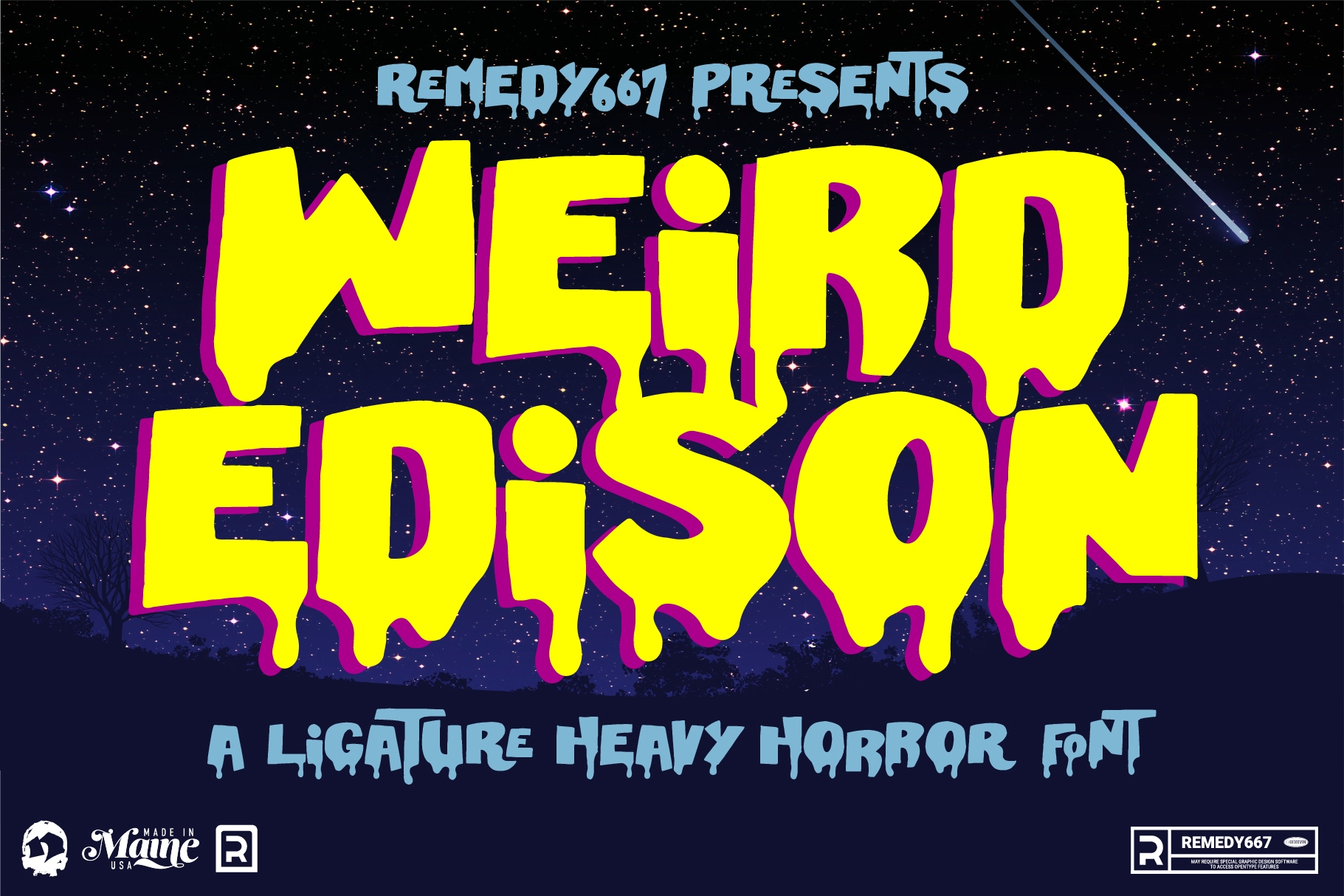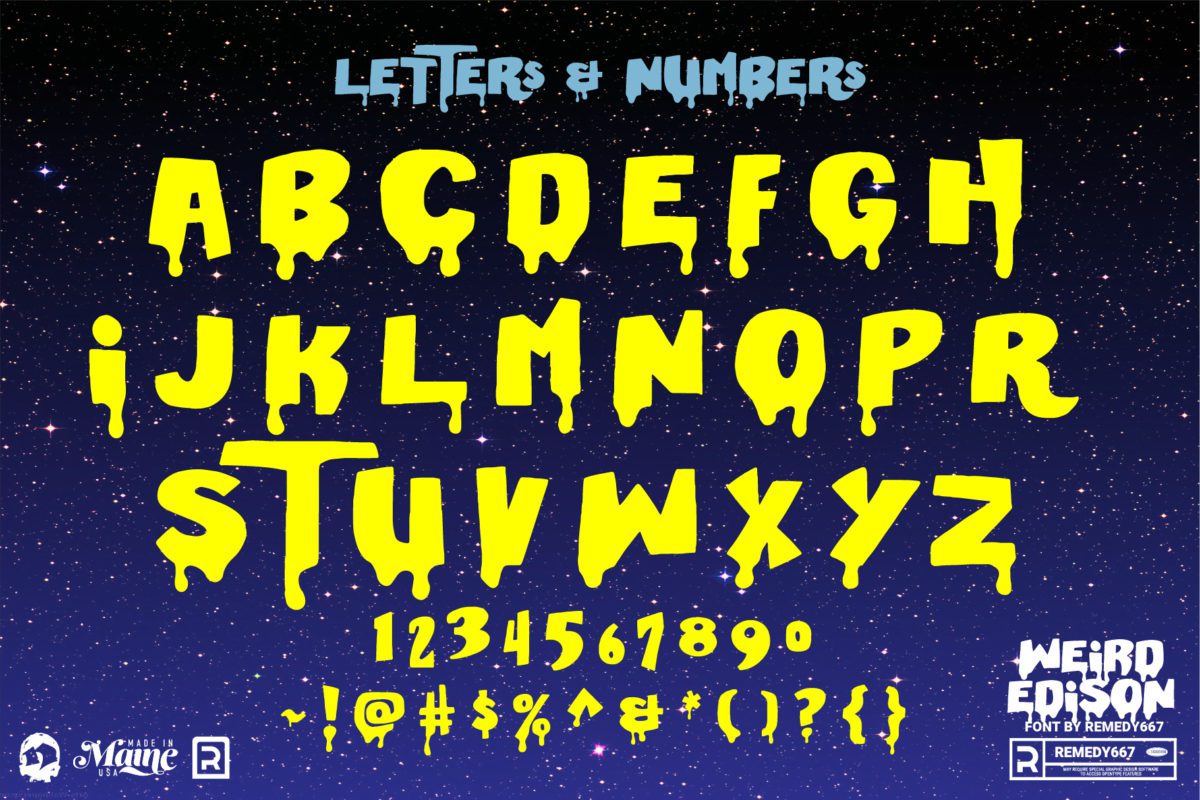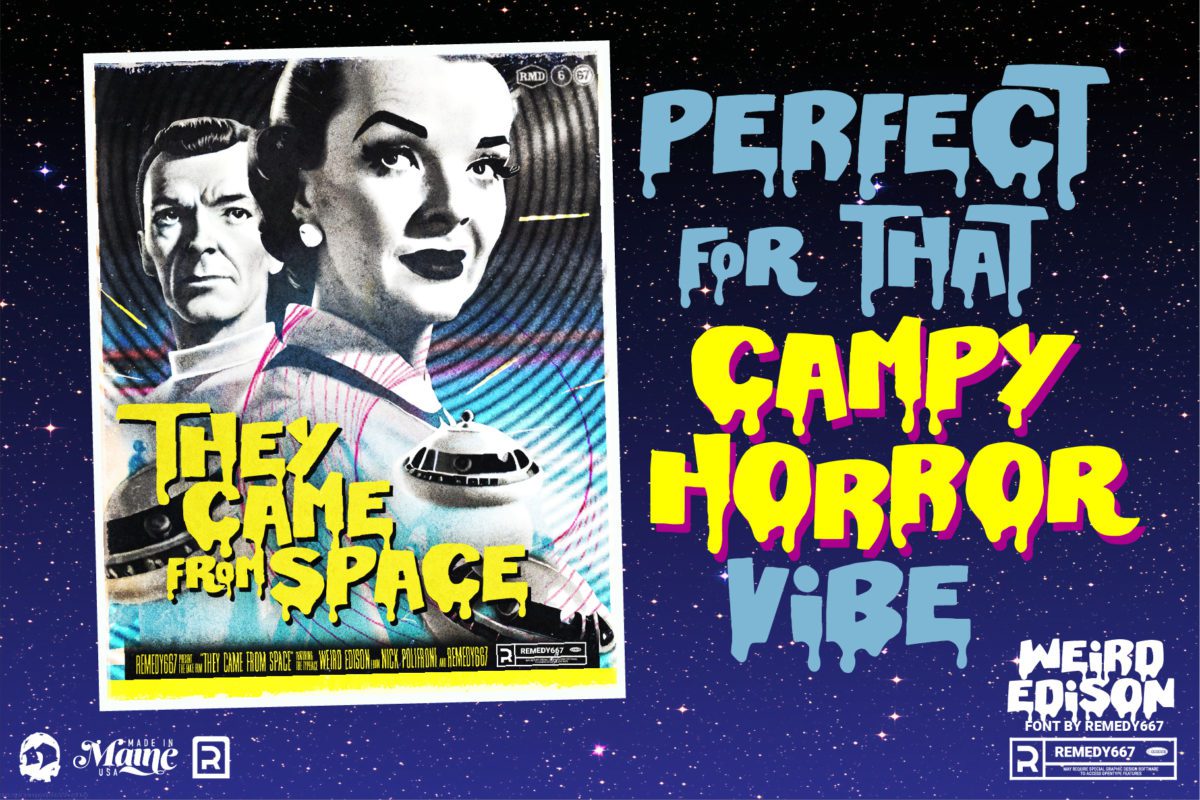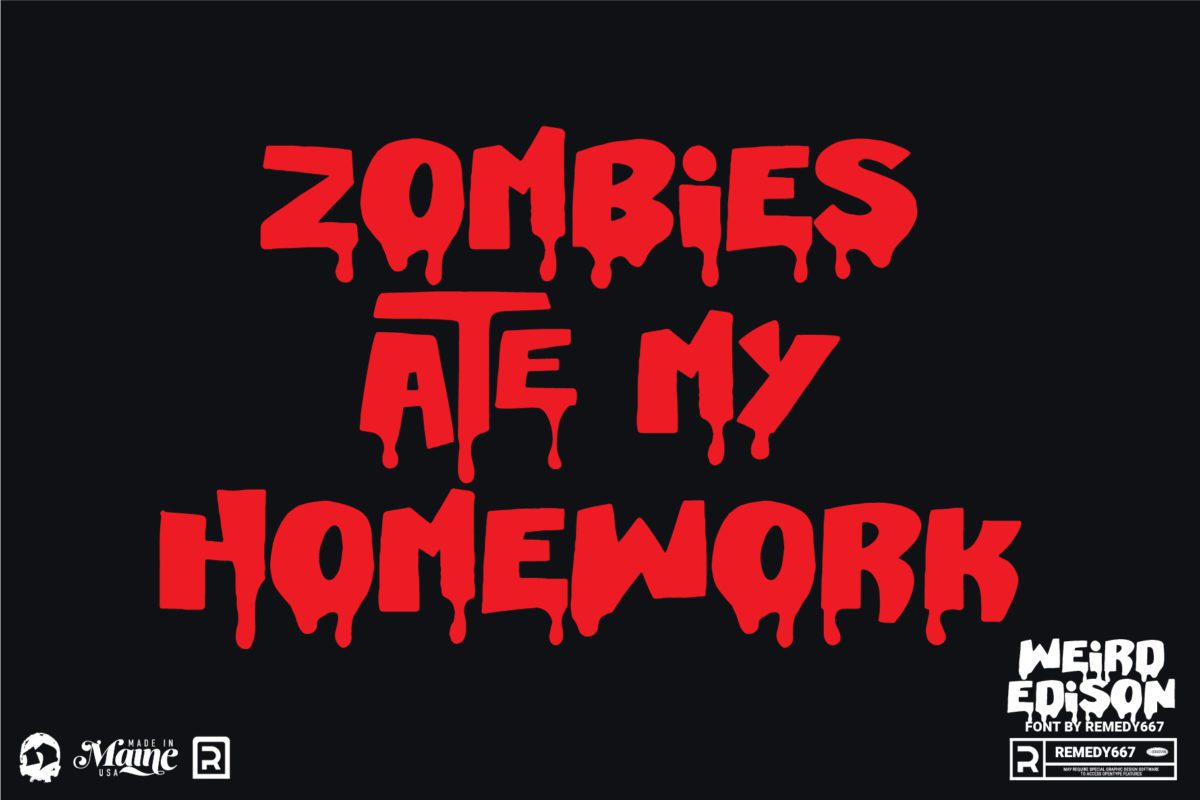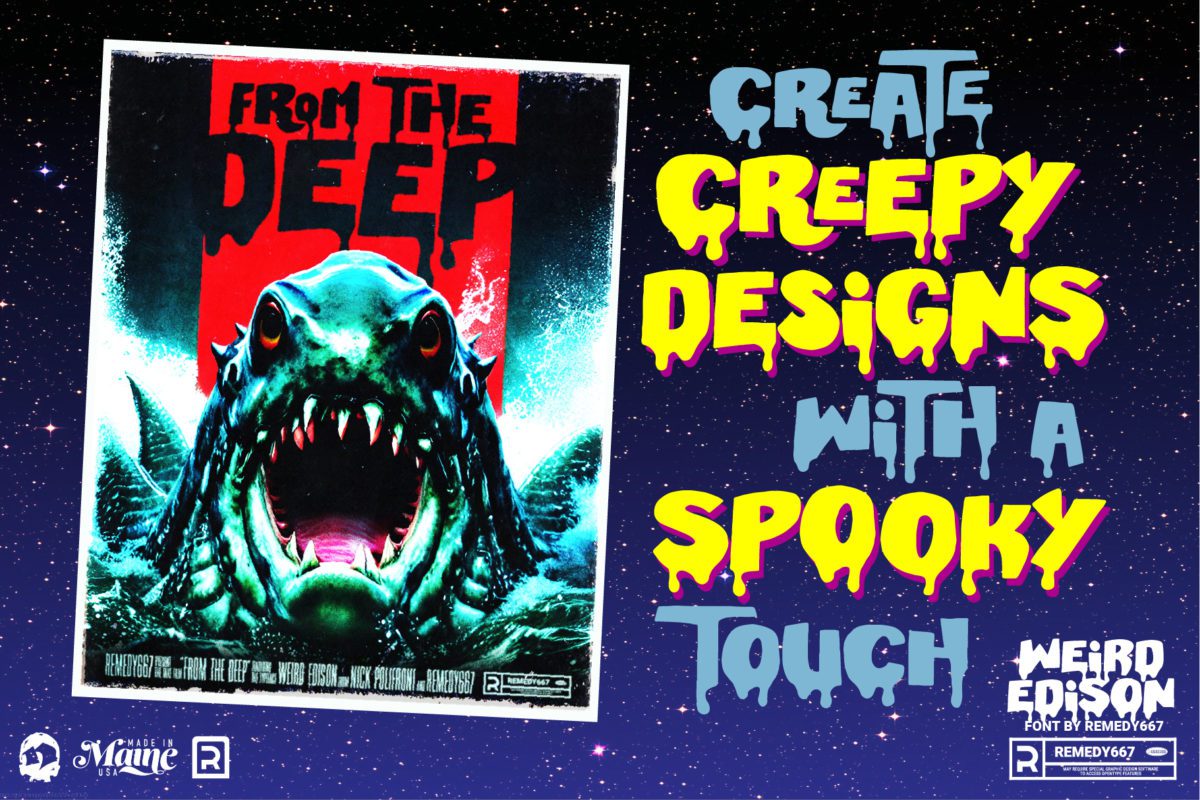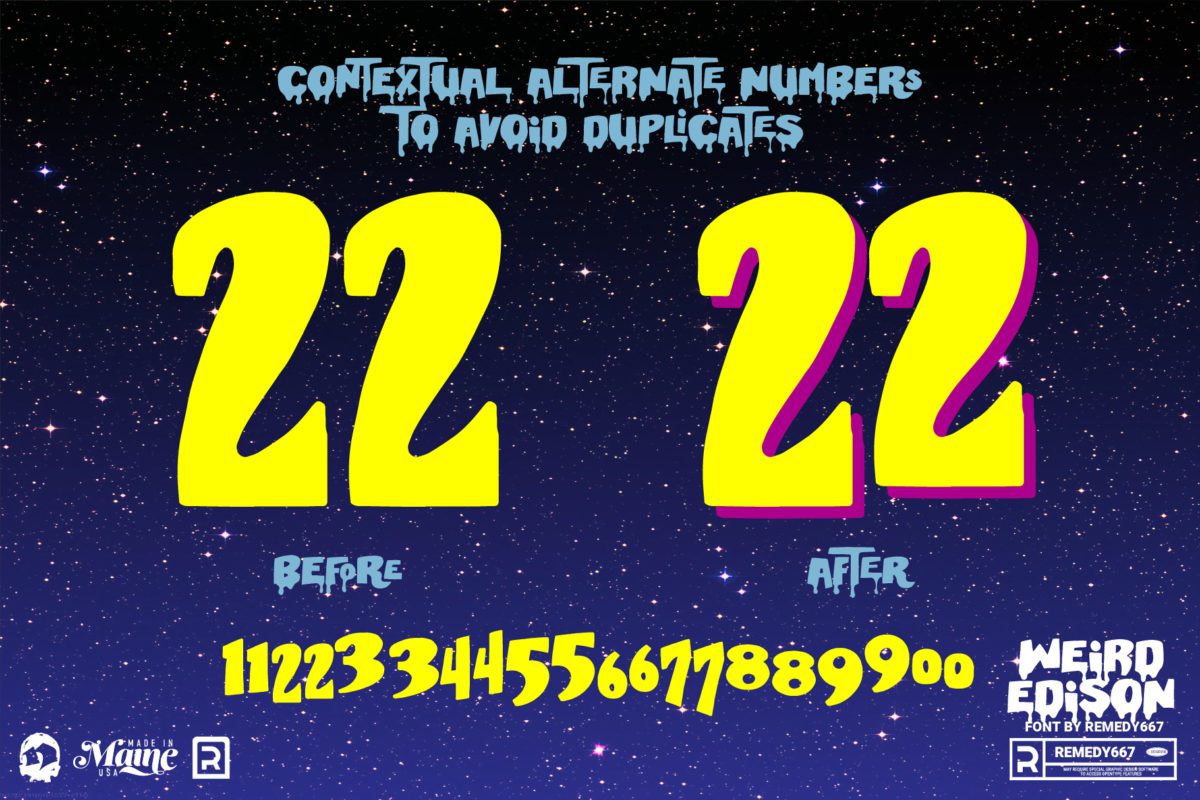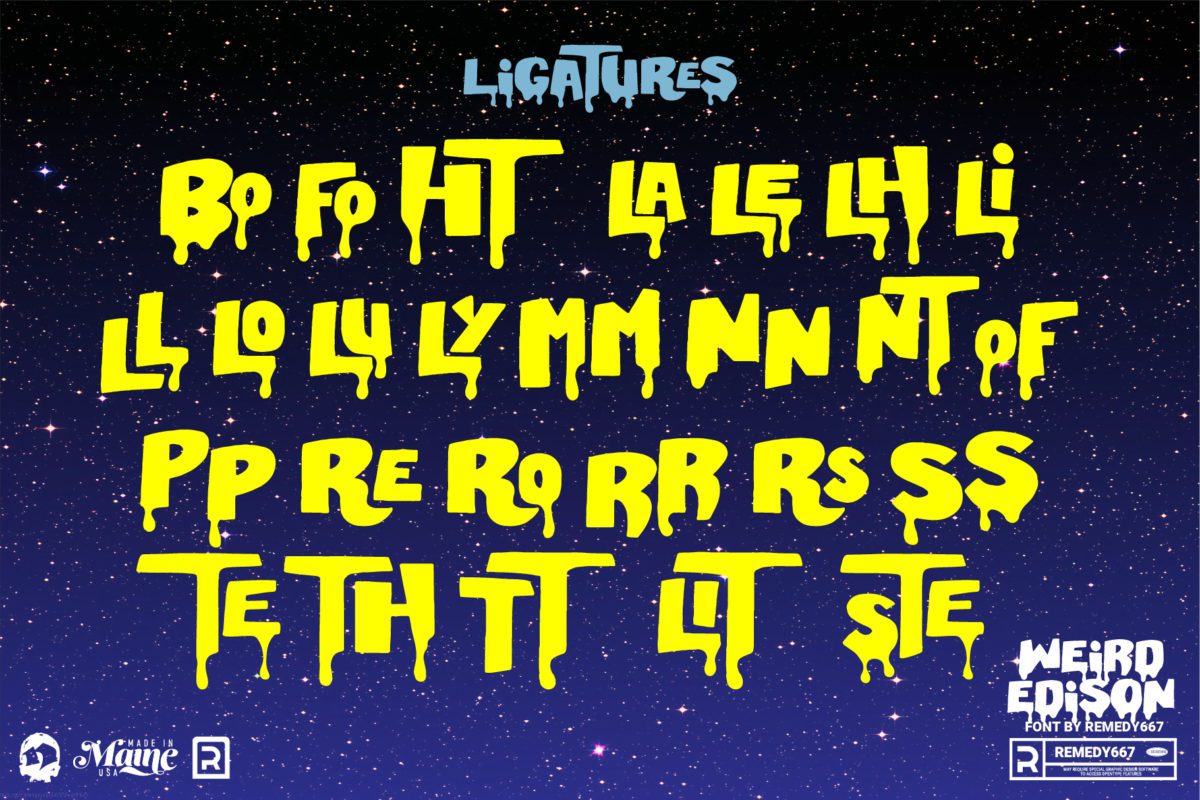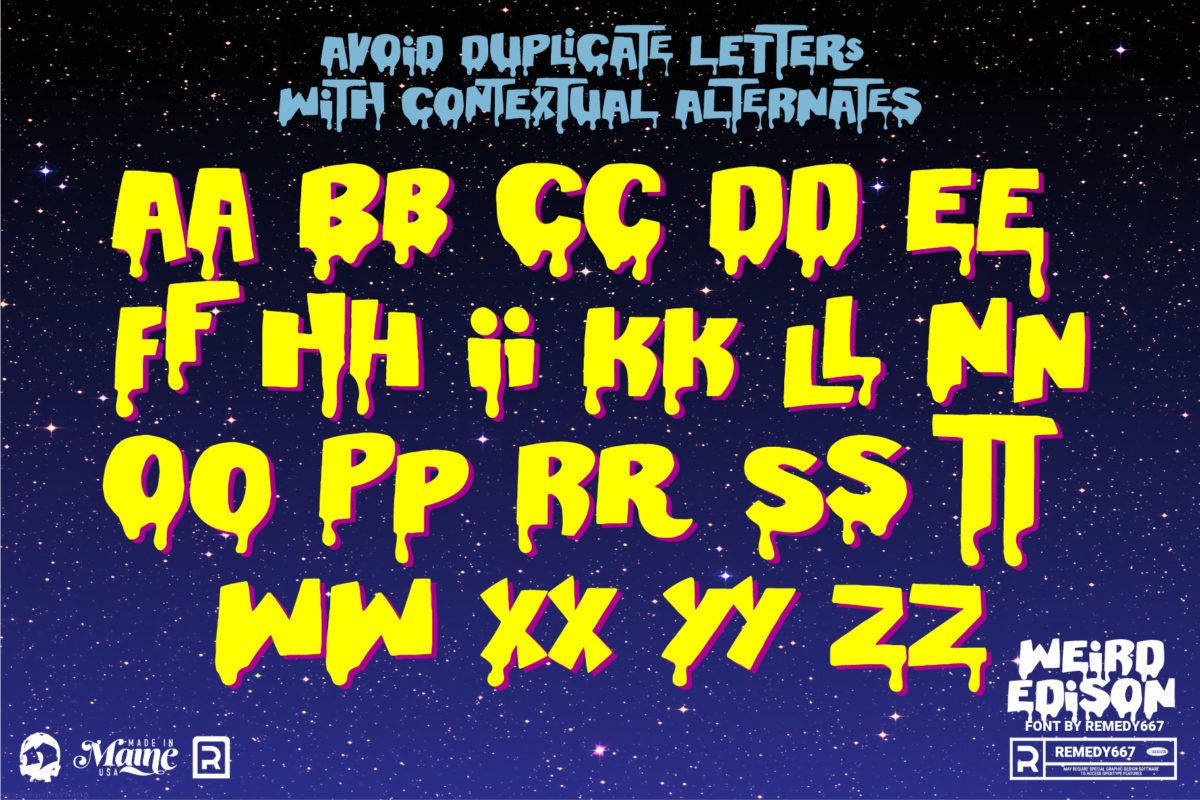
Weird Edison
Get ready to turn heads with Weird Edison! A spooky horror font inspired by the popular 90s game Zombies Ate my Neighbors. Weird Edison is sure to give your designs a unique, creepy twist.
With tons of ligatures, drippy accents, and fun details, you’ll be sure to create something special each time you use it. Unleash your creativity with Weird Edison and make your designs come alive!
Features
- Contextual alternates for numbers and letters
- Loads of Ligatures
- Give your designs the classic 90s videogame horror feel